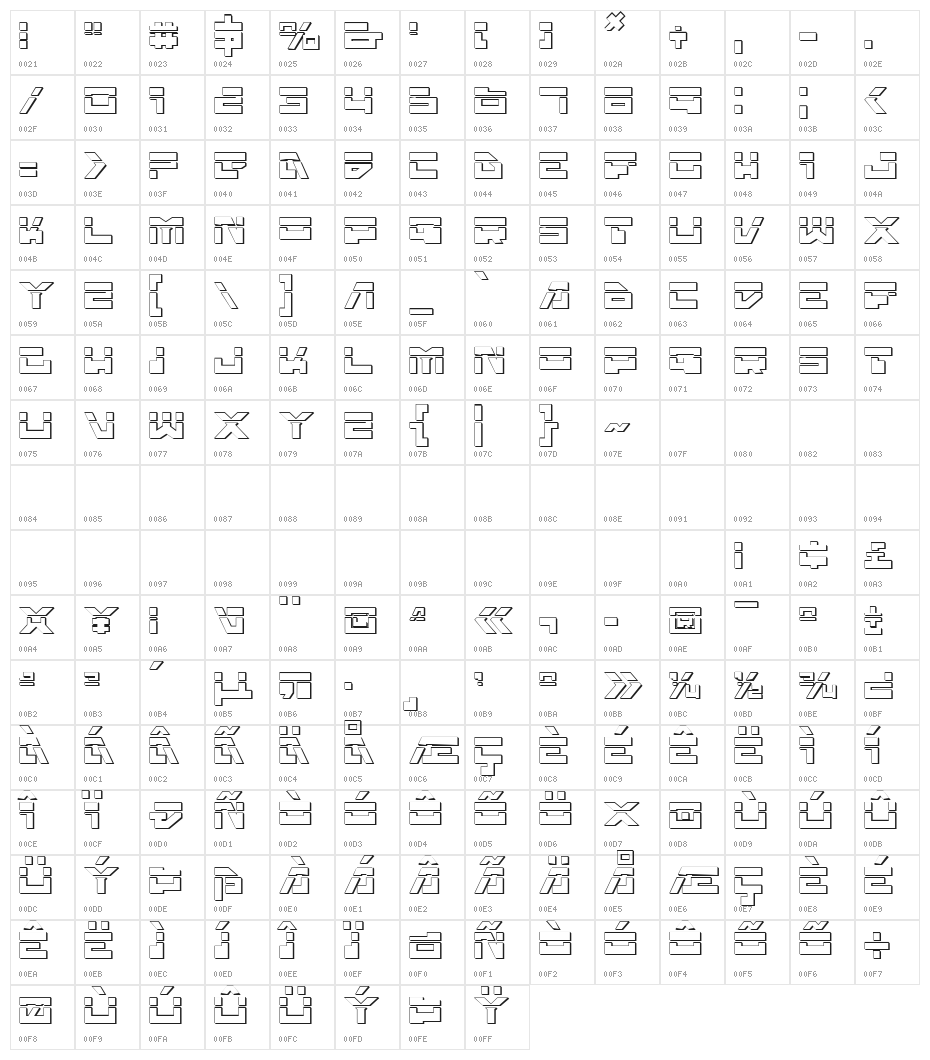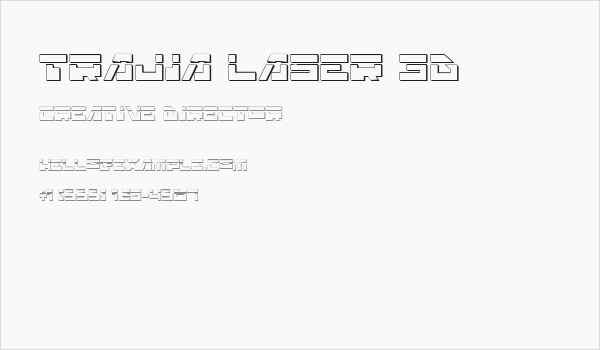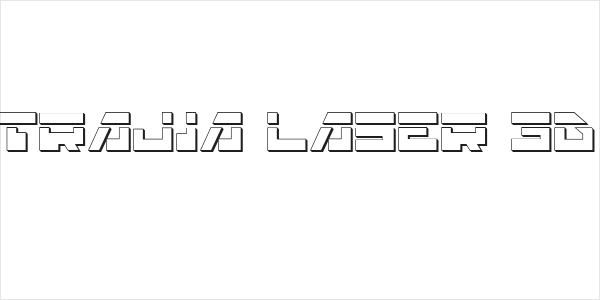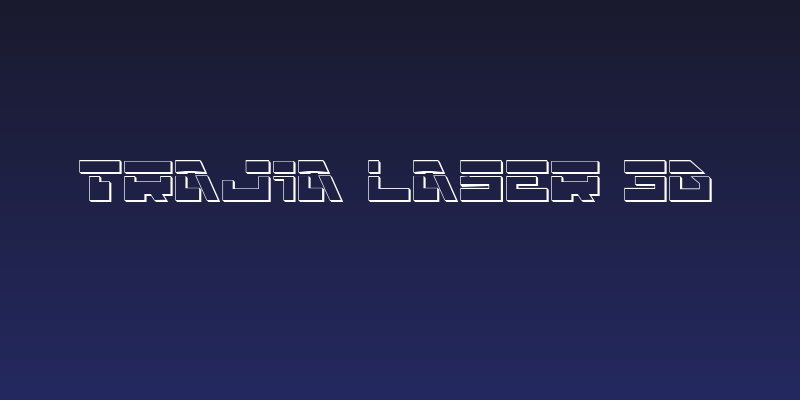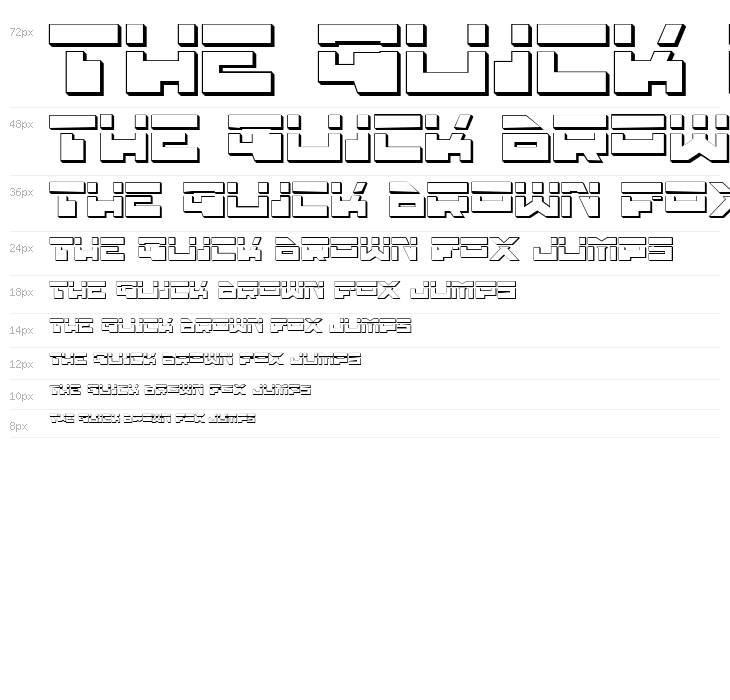
Trajia Laser 3D Font
Trajia Laser 3D Description
This font features a futuristic, geometric design with a 3D effect. Each character is constructed with bold, angular lines and a hollow interior, giving it a distinctive, tech-inspired appearance. The uppercase and lowercase letters maintain a consistent style, emphasizing sharp edges and a blocky structure. The numbers and special characters follow the same design principles, ensuring uniformity across all glyphs. This font is ideal for projects that require a modern, digital aesthetic, such as technology branding, video game titles, or sci-fi themed designs.
| Proposed Projects | Ideal for technology branding, video game titles, sci-fi themed designs, and digital media. |